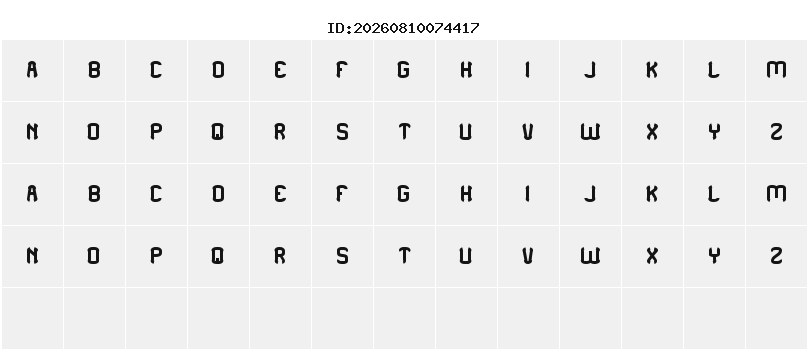
• Font Name: PLEASE FORGIVE ME
• Full Font Name: PLEASE FORGIVE ME
• Version: Version 1.00 April 7, 2014, initial release
About PLEASE FORGIVE ME.ttf
PLEASE FORGIVE ME.ttf is a modern, elegant sans-serif font designed for ultimate readability and visual harmony. Perfect for branding, headlines, web design, and print materials.